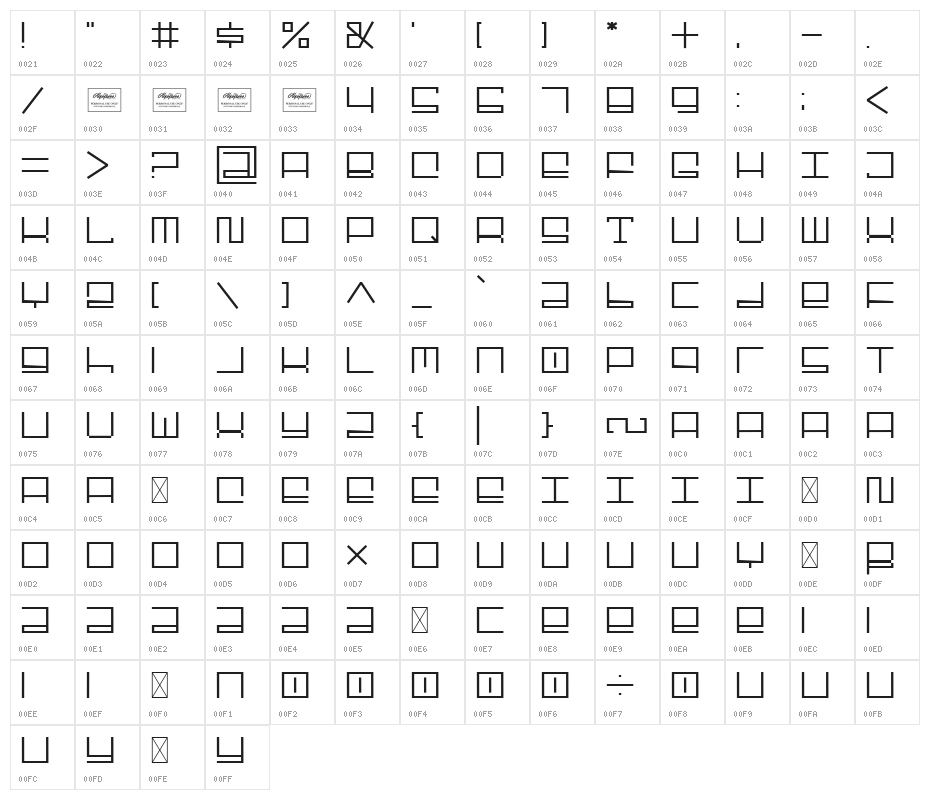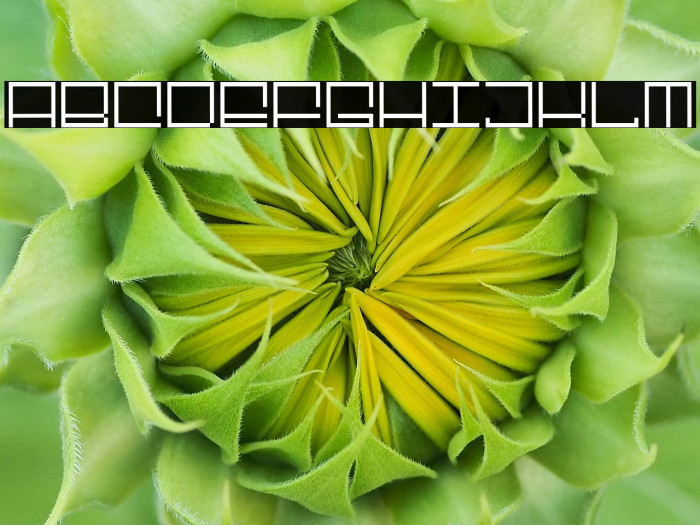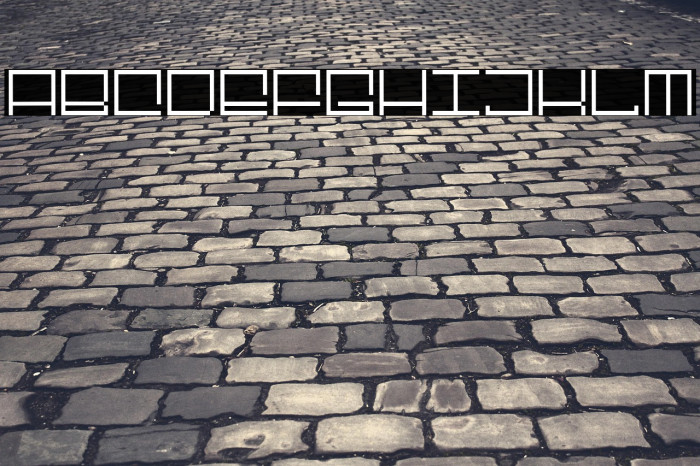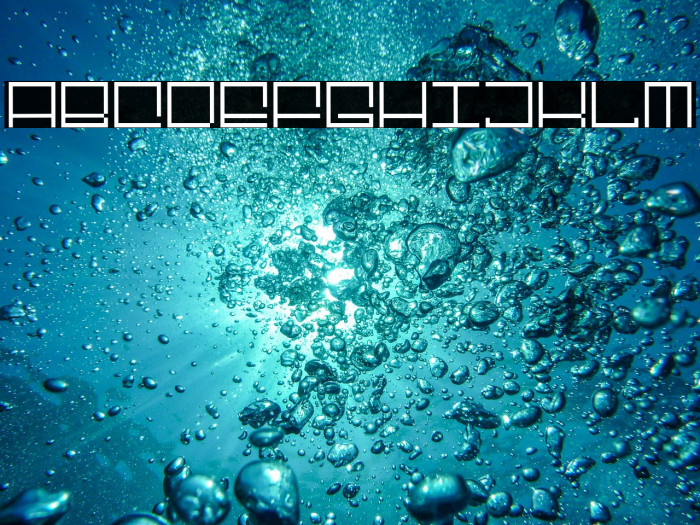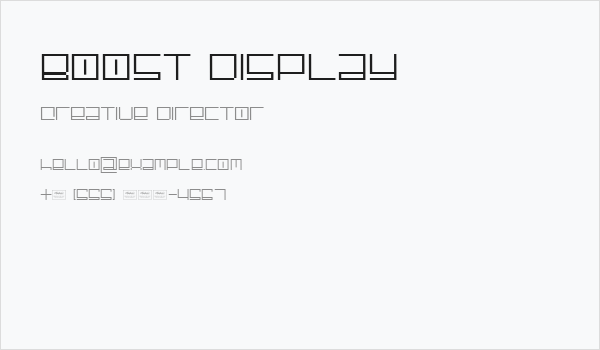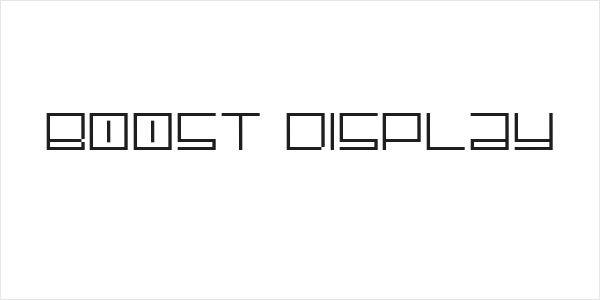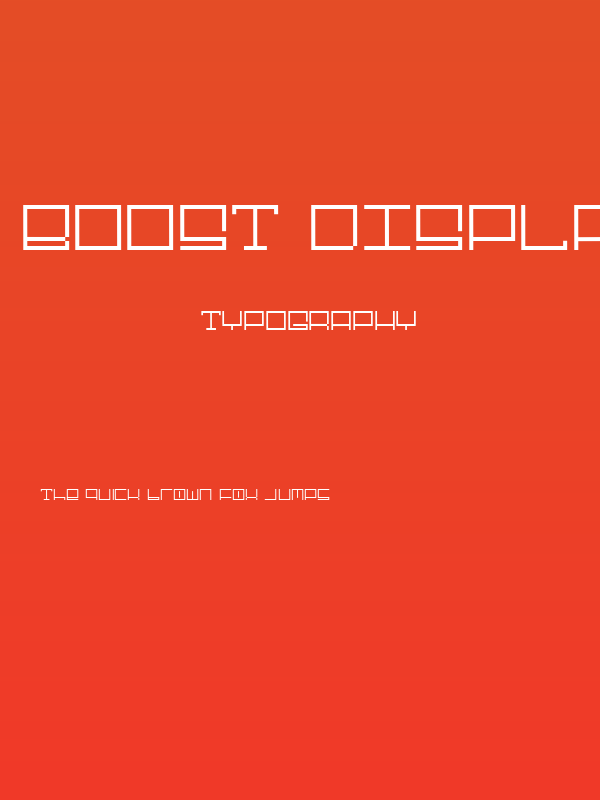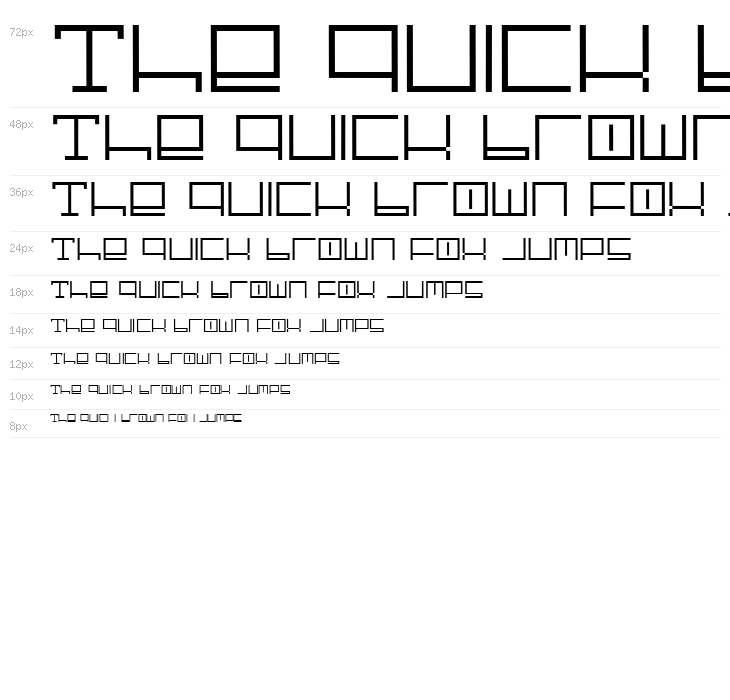
Boost Display Font
Boost Display Description
This font features a geometric and modern design with a distinctively digital appearance. The characters are composed of straight lines and right angles, giving it a structured and futuristic look. The uppercase and lowercase letters maintain a consistent height, enhancing its uniformity. The numerals and special characters follow the same design principles, ensuring a cohesive style throughout. The font's minimalistic approach makes it suitable for tech-related projects or contemporary branding.
| Proposed Projects | Ideal for tech branding, digital interfaces, modern posters, and futuristic design projects. |